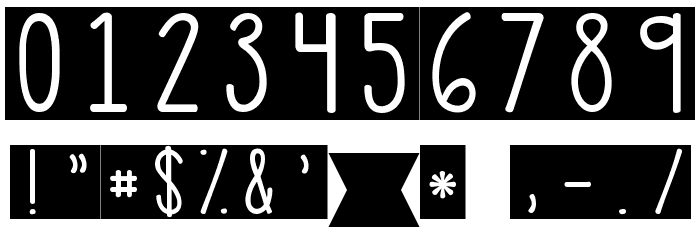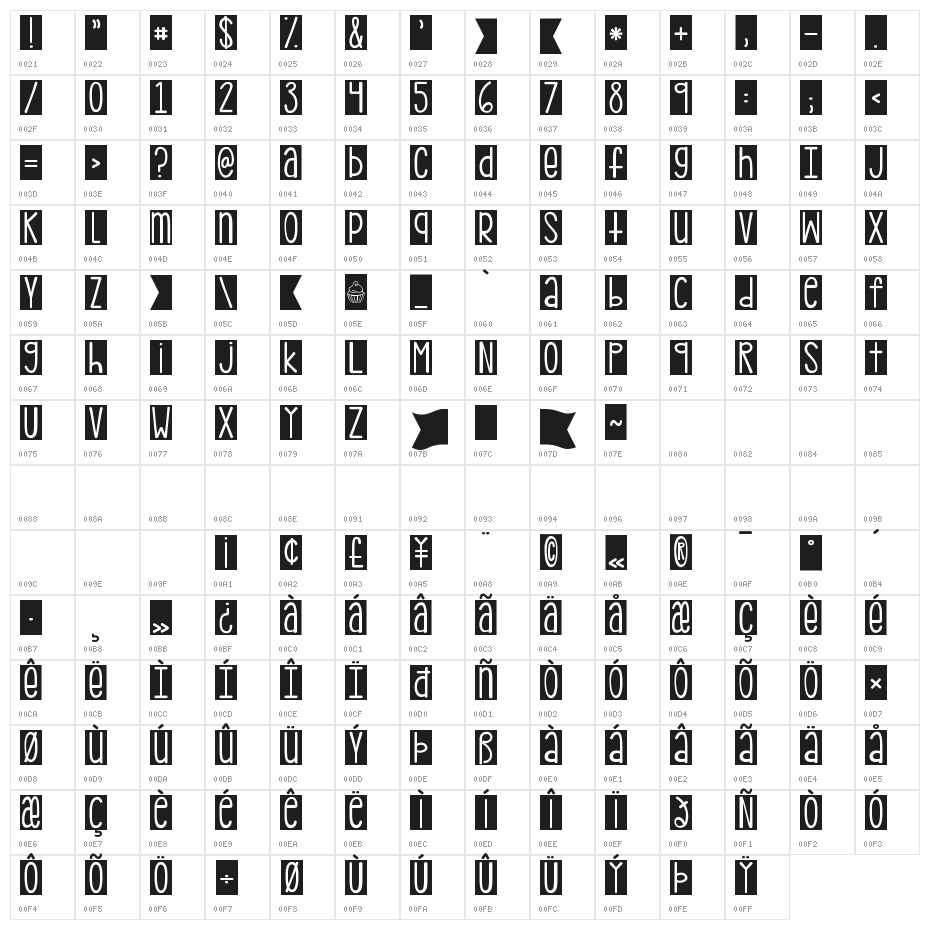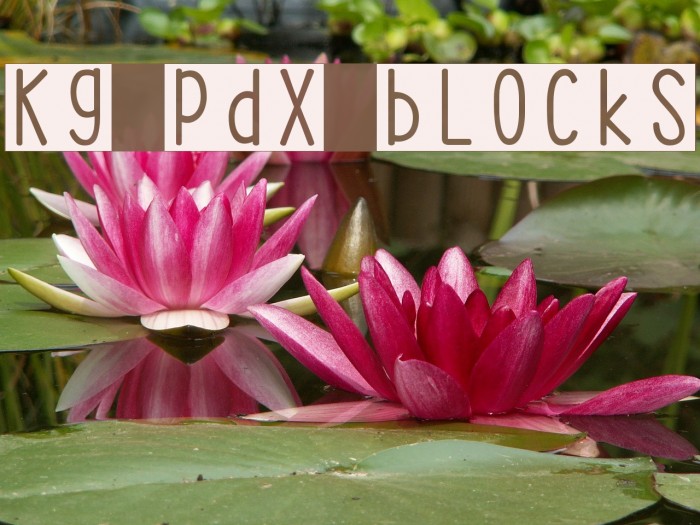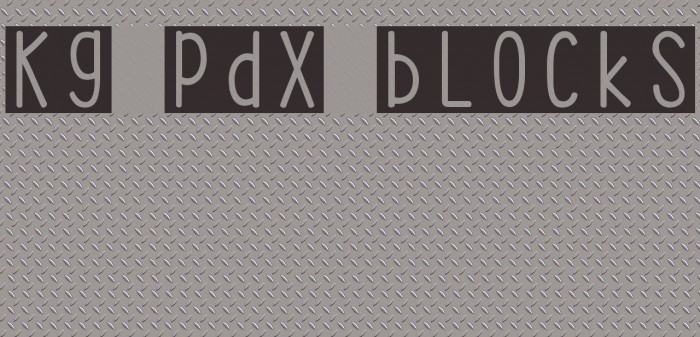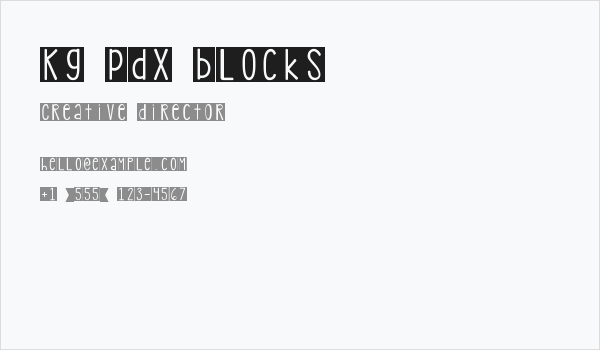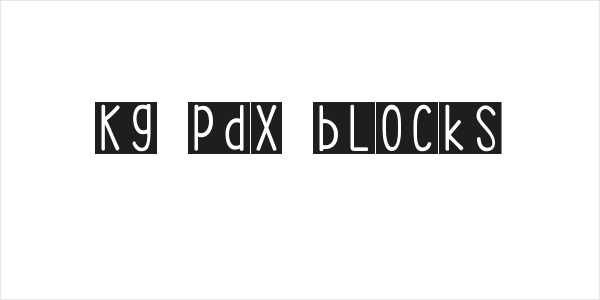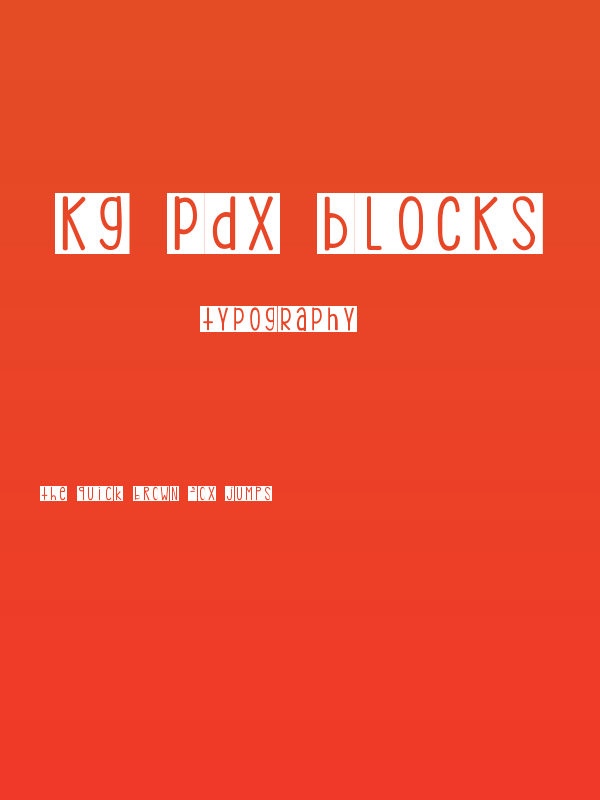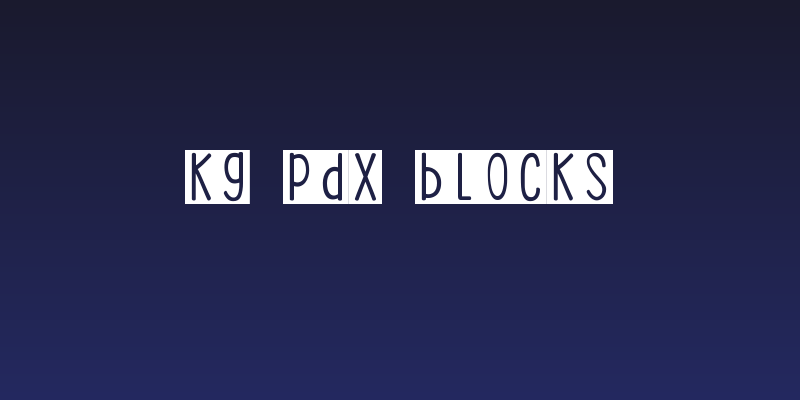
KG PDX Blocks Font
KG PDX Blocks Description
This font features a playful and modern design with a handwritten feel. The characters are tall and narrow, with rounded edges that give a friendly and approachable appearance. The uppercase and lowercase letters maintain a consistent style, with slight variations that add to the casual aesthetic. Numbers and special characters are included, matching the overall style with clean lines and a whimsical touch. The font's simplicity and charm make it suitable for a variety of creative projects.